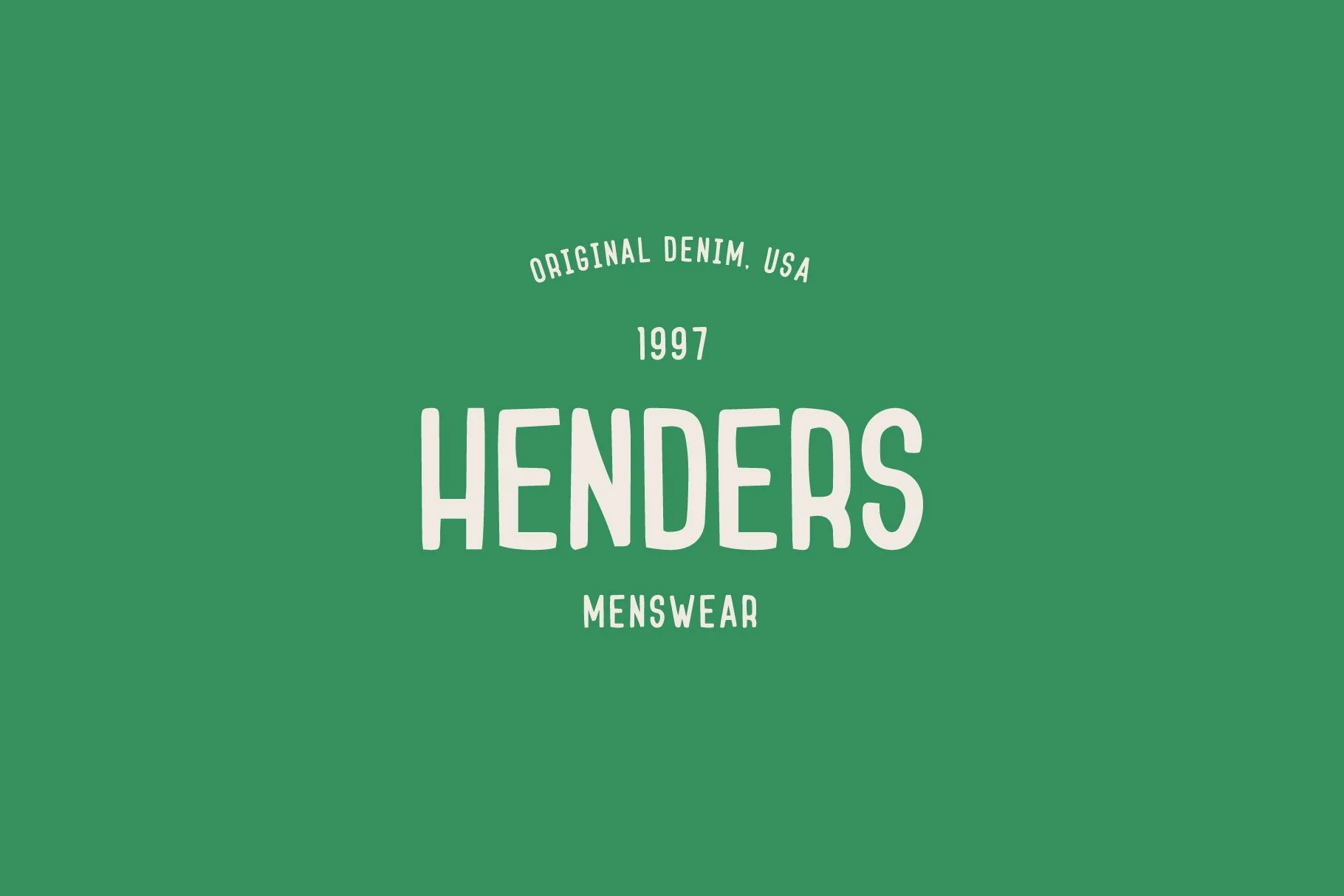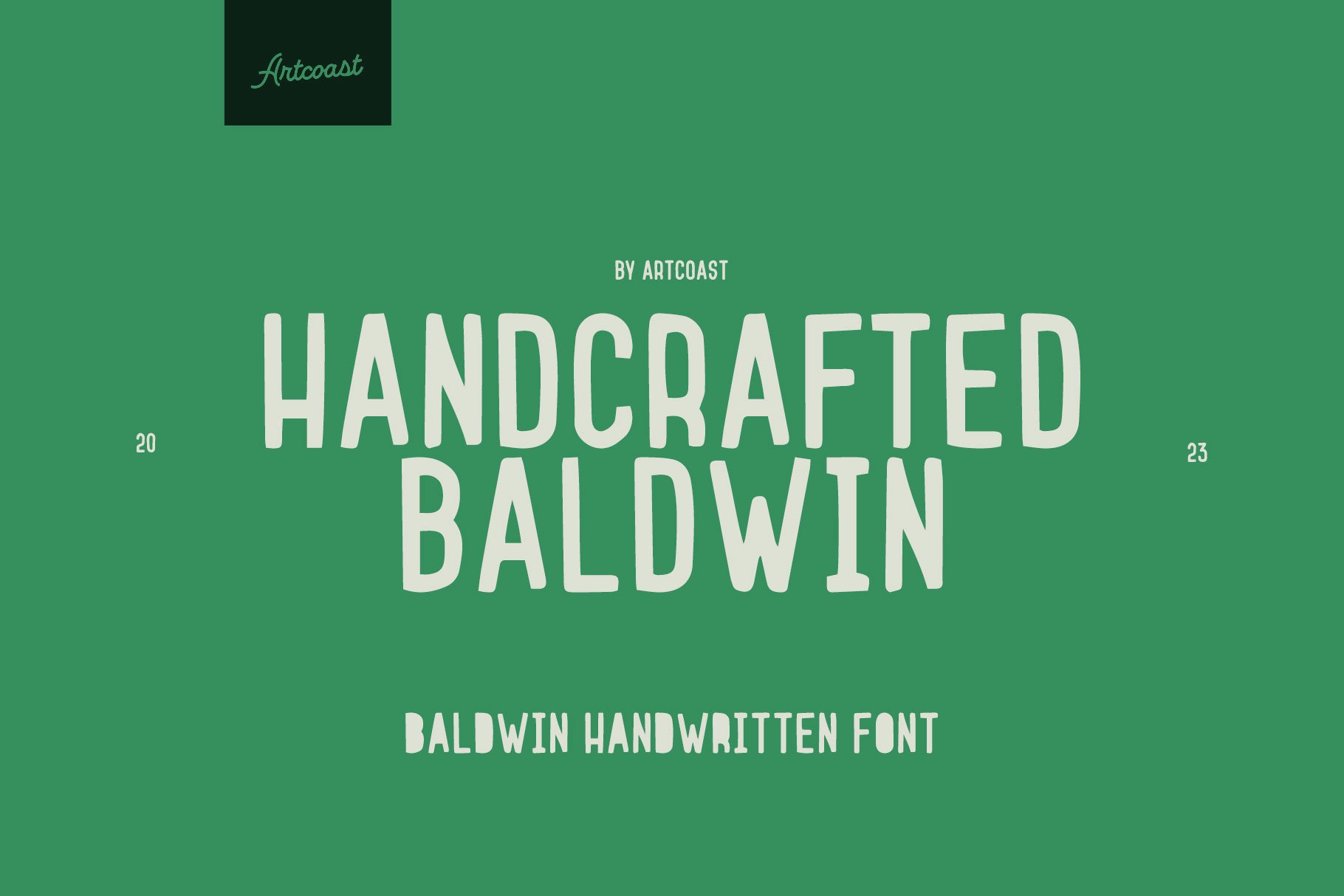
Discover the Baldwin Handwritten Font, a chic all-caps font embodying a bespoke aura. With two distinct alternatives for each letter, it effortlessly imparts a unique, handcrafted essence to your designs. Baldwin's optimal weight and width make it apt for both succinct headlines and extensive text blocks.
Ideal for branding, social media visuals, or print endeavors, it injects a distinctive flair into your creations. Its all-caps composition exudes a sleek, contemporary vibe, while the alternates introduce a sprinkle of character. Seize the Baldwin Handwritten Font now, and commence crafting captivating designs that truly distinguish themselves!